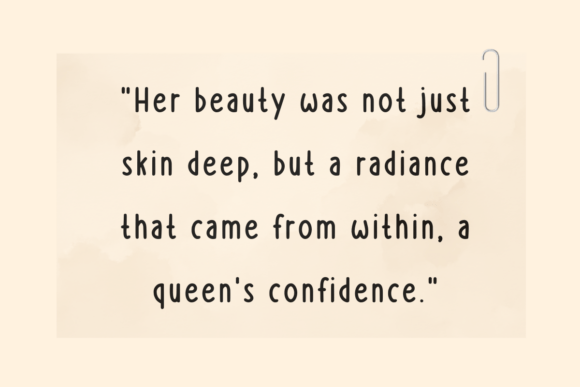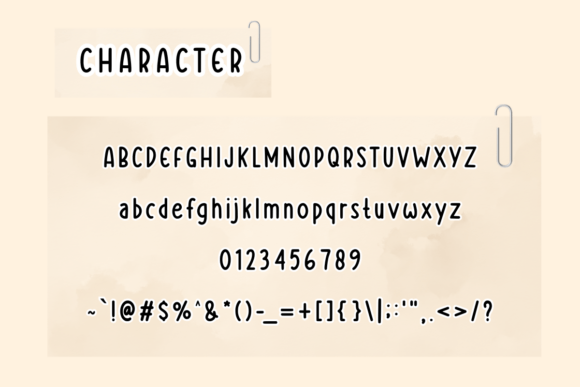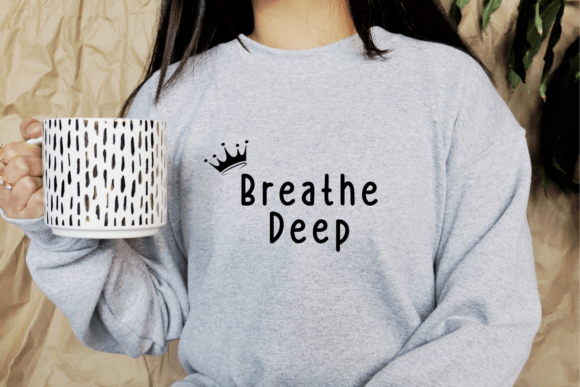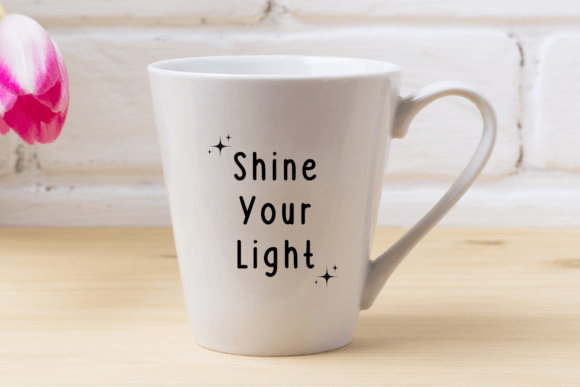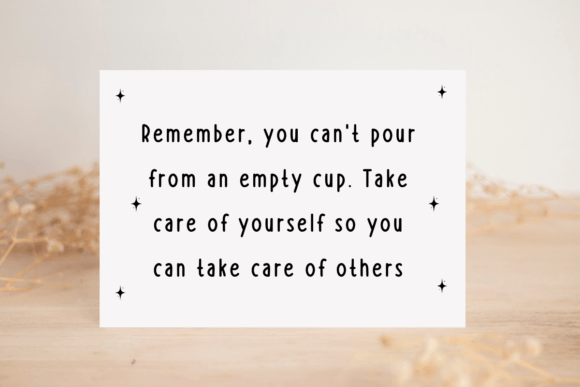
Introduction to Queens Romance Font
Queens Romance is a charming sans serif font with a clean yet whimsical vibe.
Featuring smooth curves and a hand-drawn feel, this font is perfect for romantic designs, wedding invitations, heartfelt branding, and elegant social media graphics Its versatile style pairs a modern aesthetic with a touch of playful warmth, making it ideal for creative and love-inspired projects.